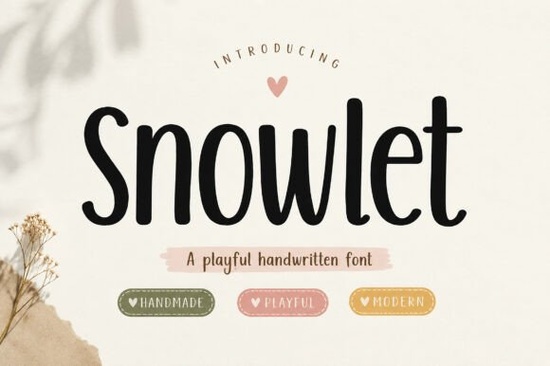
If you've been looking for a handwritten font that feels natural, warm, and easy to pair with other design elements, Snowlet Font is worth a closer look. It's a playful, minimalist typeface with tall letterforms and smooth curves that give your projects an authentic, handcrafted look. Whether you're working on product packaging, social media graphics, or wedding invitations, this font brings a cozy and approachable feel to your designs.
What kinds of projects does Snowlet work best for?
Snowlet was designed with versatility in mind. Its clean handwritten strokes and organic flow make it a strong fit for a wide range of creative work, including:
- Branding and logo design especially for small businesses that want a friendly, personal touch
- Product packaging and labels great for handmade goods, candles, skincare, and food products
- Social media graphics quotes, announcements, and promotional posts
- Greeting cards and invitations weddings, birthdays, and seasonal designs
- Planners, journals, and notebook covers
- Kids' branding and craft projects
What features does Snowlet include?
Snowlet comes with a solid set of features that make it practical for real design work:
- Full uppercase and lowercase character set
- Numbers and punctuation
- Ligatures and swashes for extra styling options
- Multilingual support
- PUA encoded characters for easy access in any software
The swashes are a nice bonus they let you add decorative flourishes to headlines and titles without needing a separate ornamental font.
How does Snowlet compare to other script fonts?
There are plenty of handwritten and script fonts available, so how does Snowlet stand out? Its main strength is its balance. It's playful without being childish, and modern without feeling cold. The tall proportions and natural stroke variation give it a relaxed, lived-in quality that works well across different aesthetics.
That said, depending on the vibe you're going for, you might want something with a different personality. If you need a more expressive and bold script, there are options with thicker strokes and bolder curves. For projects that call for a bit of sparkle and flair like party invitations or holiday cards a more decorative display script could be a better match.
Snowlet sits in that sweet spot where it's versatile enough for professional branding but personal enough for handmade and craft projects.
Is Snowlet a good choice for print-on-demand sellers?
Yes especially if your brand leans toward soft, natural, or lifestyle aesthetics. Print-on-demand sellers often need fonts that look good on t-shirts, mugs, tote bags, and stickers without being too hard to read at smaller sizes. Snowlet's clean strokes and moderate spacing make it legible on both large and small prints.
It also pairs well with simple sans-serif fonts for body text, which is helpful when you're designing product descriptions or packaging layouts.
Who should use Snowlet?
Snowlet is a solid pick for:
- Small business owners who want branding that feels approachable and handmade
- Crafters and hobbyists who make greeting cards, planners, and journals
- Print-on-demand sellers looking for a versatile script font
- Social media managers who want quote graphics and promotional posts to stand out
- Wedding and event designers creating invitations and signage
If your design style leans toward warm, cozy, and minimal, Snowlet fits naturally into your toolkit.
- Know your project: Snowlet works best for branding, packaging, invitations, and social media
- Plan your pairings: Pair Snowlet with a clean sans-serif for body copy
- Test the swashes: Use the included ligatures and swashes to customize headlines
- Consider your brand tone: If you want warm and friendly, this font delivers. If you need something edgier, explore other script options